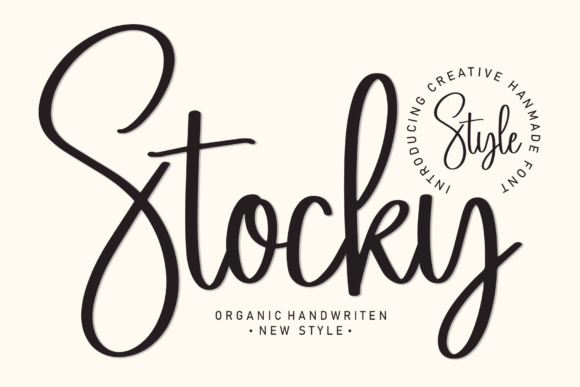
Are you in search of a script font that exudes modernity and neatness? Look no further than Stocky Font! Created by Andikastudio, this font is an excellent addition to your collection, especially if you're looking for a font that caters to fashion themes.
Stocky Font is the perfect balance of simplicity and sophistication. With its precise hand-drawn lettering, Stocky Font can be used for various design projects, including logo creation, website design, social media graphics, and so much more. Its bold and confident style is sure to catch the eye and captivate your audience.
This font's versatility makes it a must-have in your font library. Whether you're creating a poster, branding material, or any other design project, Stocky Font will add a touch of elegance and flair that is unmatched by other fonts. It can be used in both formal and informal settings, making it the perfect fit for a wide range of design needs.
Stocky Font is not just a font; it is an experience. This font was created with fashion enthusiasts in mind and is designed to convey a sense of style and flair in your designs. Its emotional appeal makes it the perfect font for brands that want to connect with their audience on a deeper level.
In conclusion, Stocky Font is an exceptional font that delivers a modern, neat, and sophisticated look. Its versatility and emotional appeal make it a must-have for any design project. So, what are you waiting for? Add Stocky Font to your font library and elevate your designs to the next level!